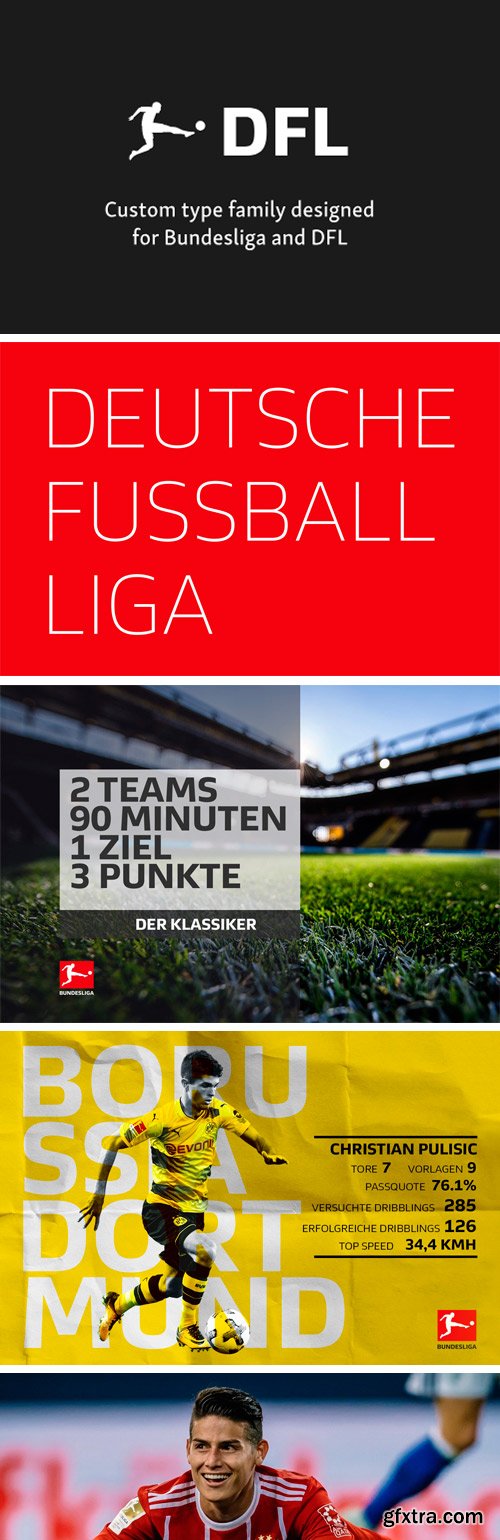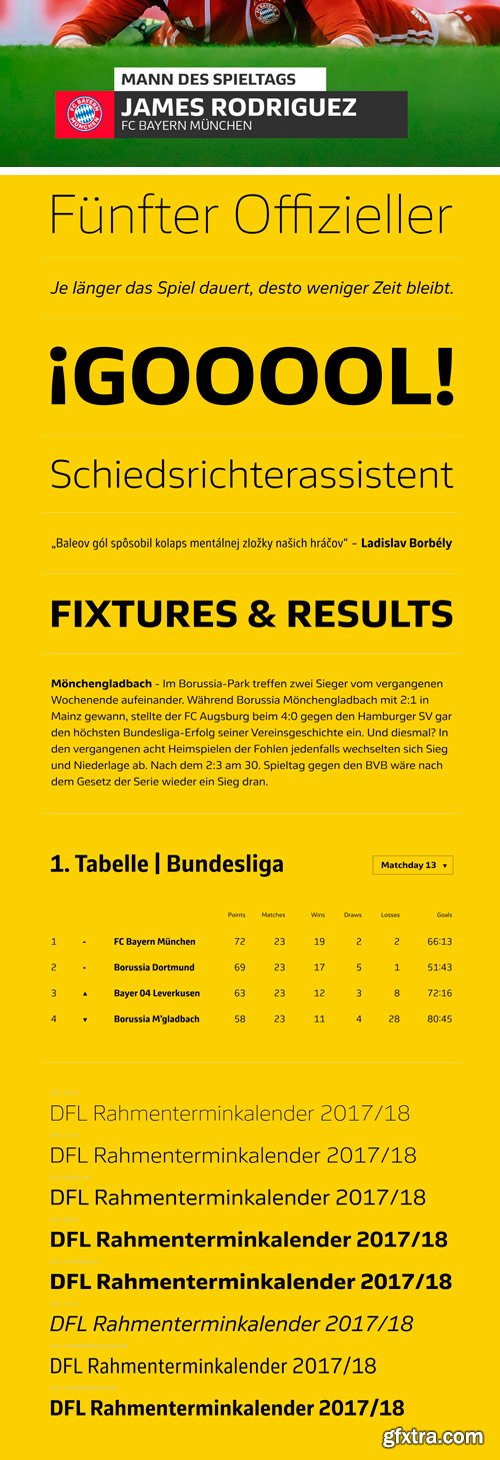
The Bundesliga is Germany’s primary football (soccer) competition, with the highest average stadium attendance worldwide. Like many major national sports leagues, one of their goals is to increase worldwide visibility. Bundesliga’s head organisation DFL (Deutsche Fußball Liga) decided to develop a new branding and type system to kick things off. They needed something simple and adaptable that could be recognised immediately.
DFL Sans is at the center of the new identity and forms the foundation of all logos and sub-brands associated with DFL and Bundesliga. The solution takes a digital-first approach: a typeface created with varying screen resolutions in mind, but ultimately suitable for all media. The result is a slightly rounded, square construction. Generous proportions, wide counters, and open apertures facilitate readability in medium and small point sizes. The typeface has been in operation since the start of the 2017/2018 season, carrying the on-air graphics, website, all social media channels, and merchandising; it is also integral to the Bundesliga arena experience.